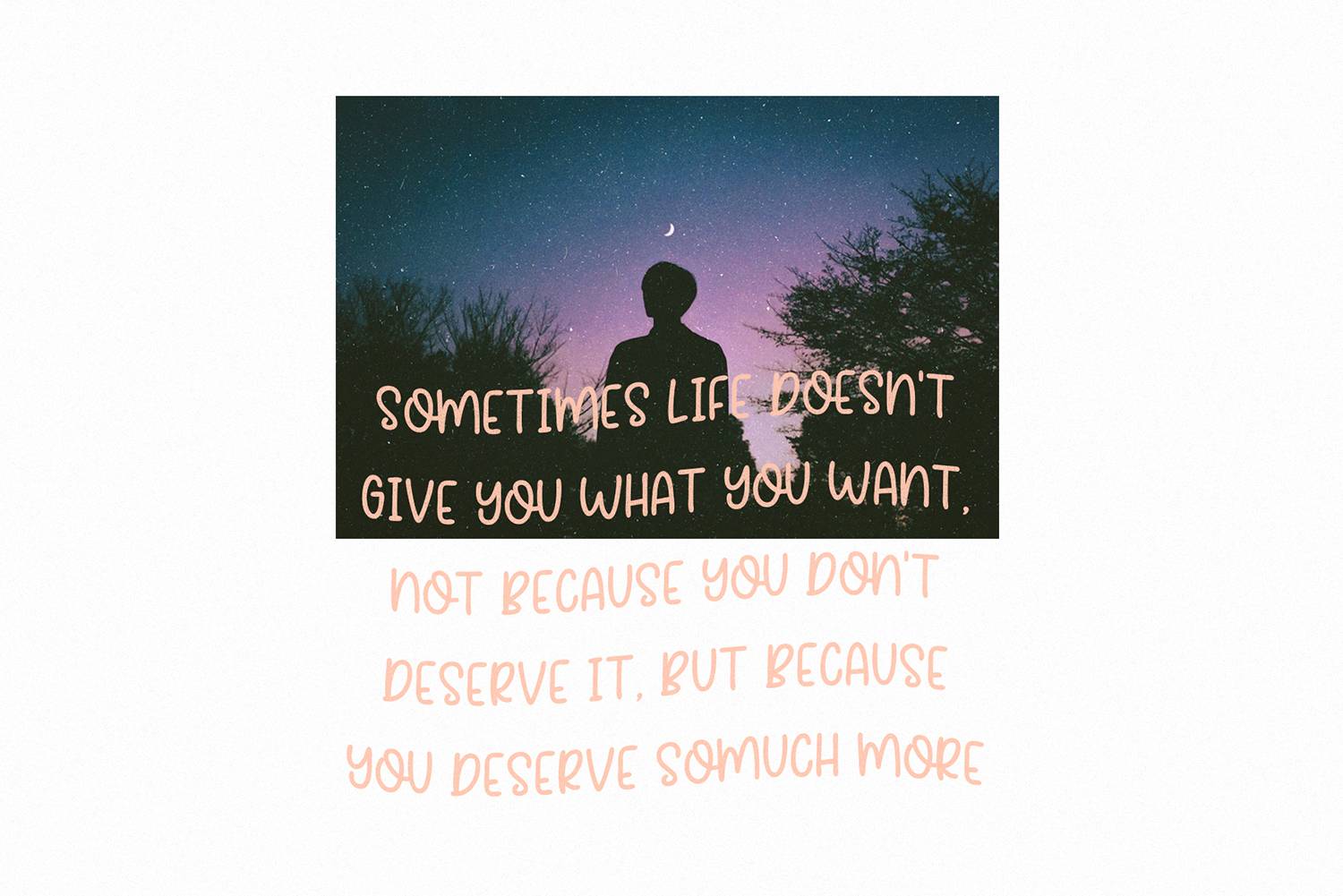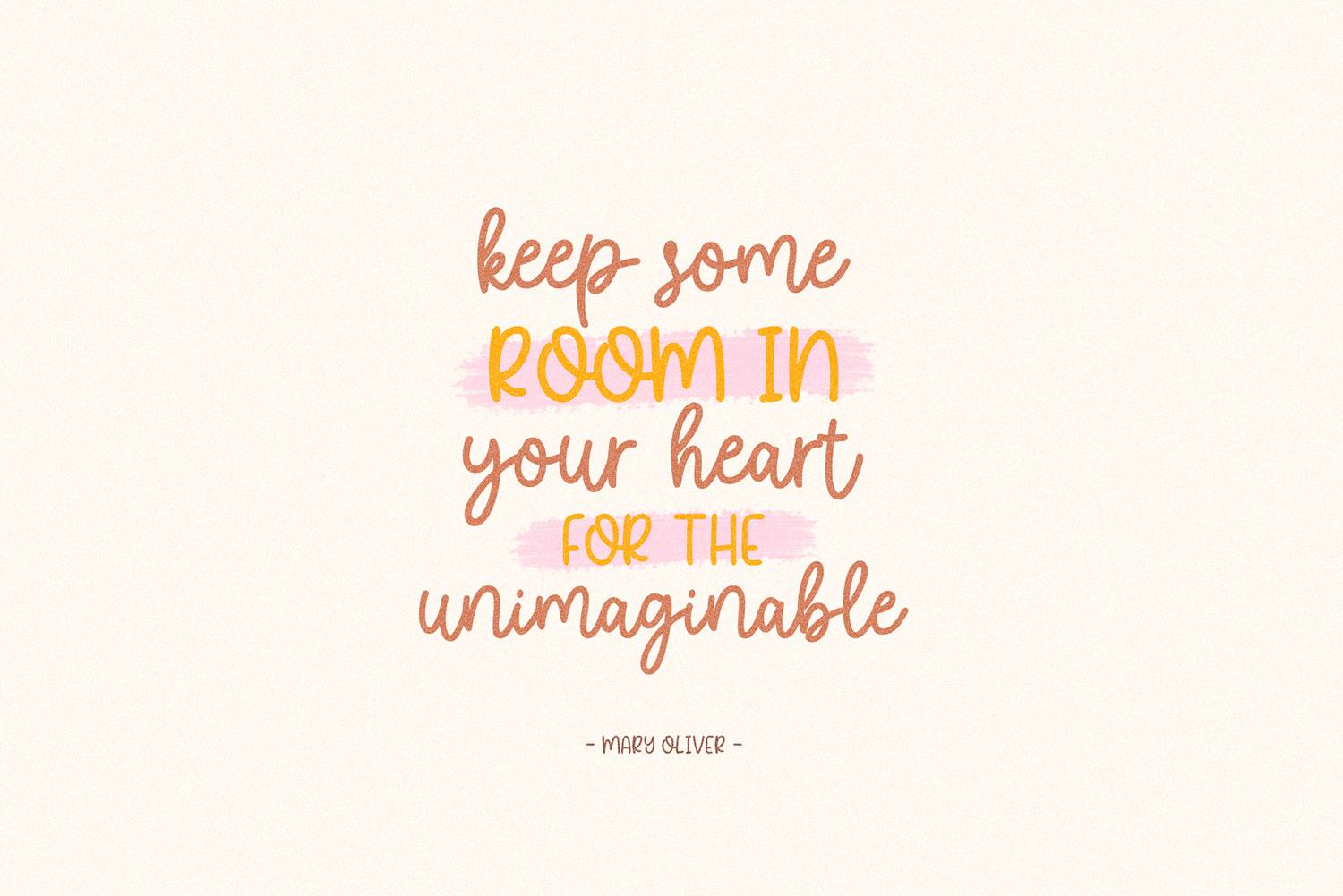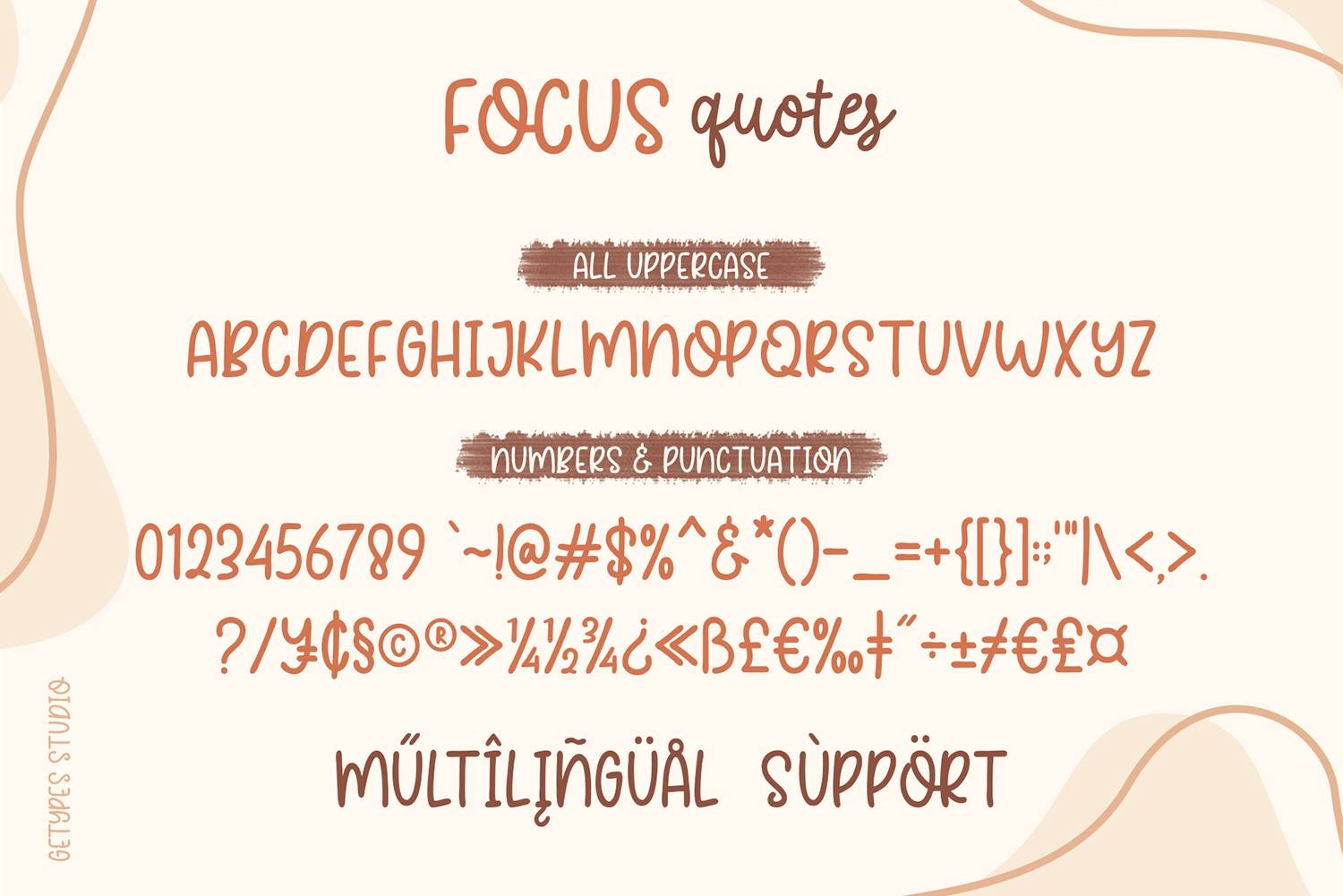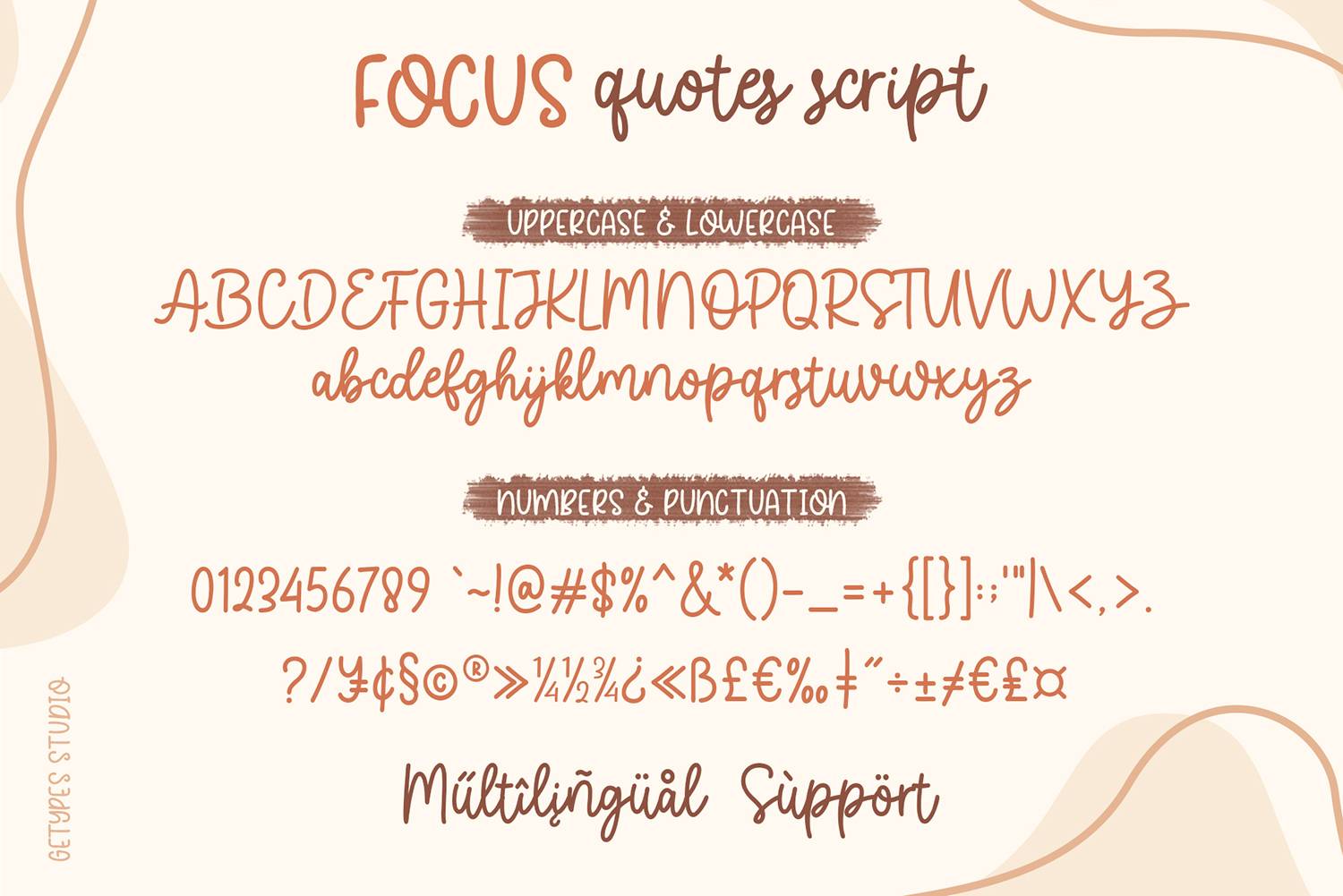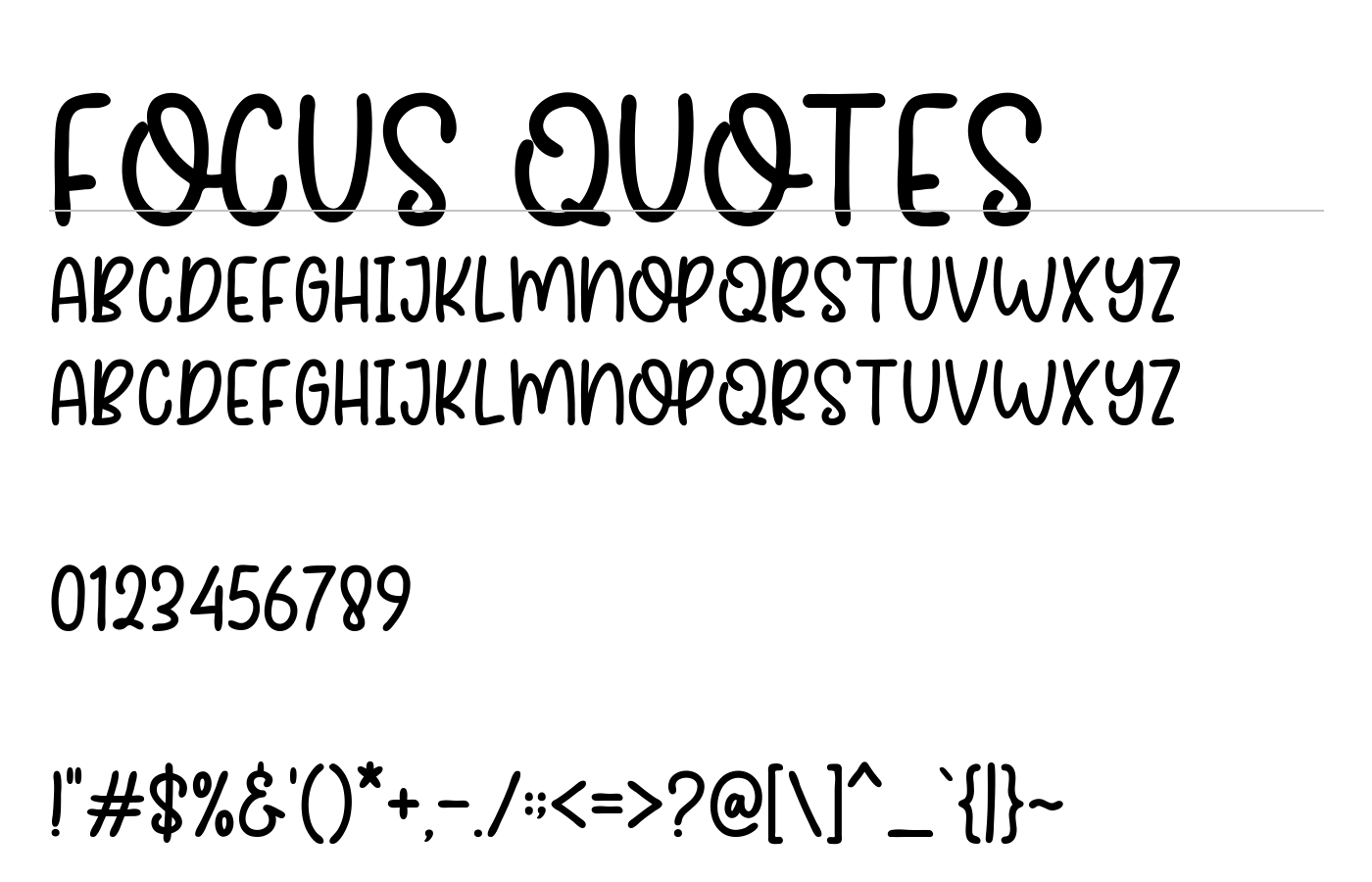
Focus Quotes Font is a playful and casual sans serif typeface with a hand-drawn feel, featuring rounded, slightly irregular letterforms that bring warmth and personality to any design. Its moderate weight and condensed width make it highly readable while maintaining a friendly, informal vibe, ideal for use in quotes, social media graphics, and creative projects that seek a personal touch. This font works well in headlines or display text where a charming and approachable tone is desired.
Focus Quotes Font
About Focus Quotes Font
| Font family | Focus Quotes Font |
| Designer | Rizaldi Wandani |